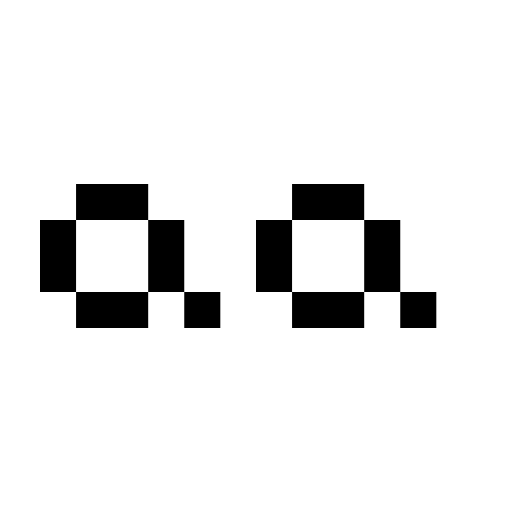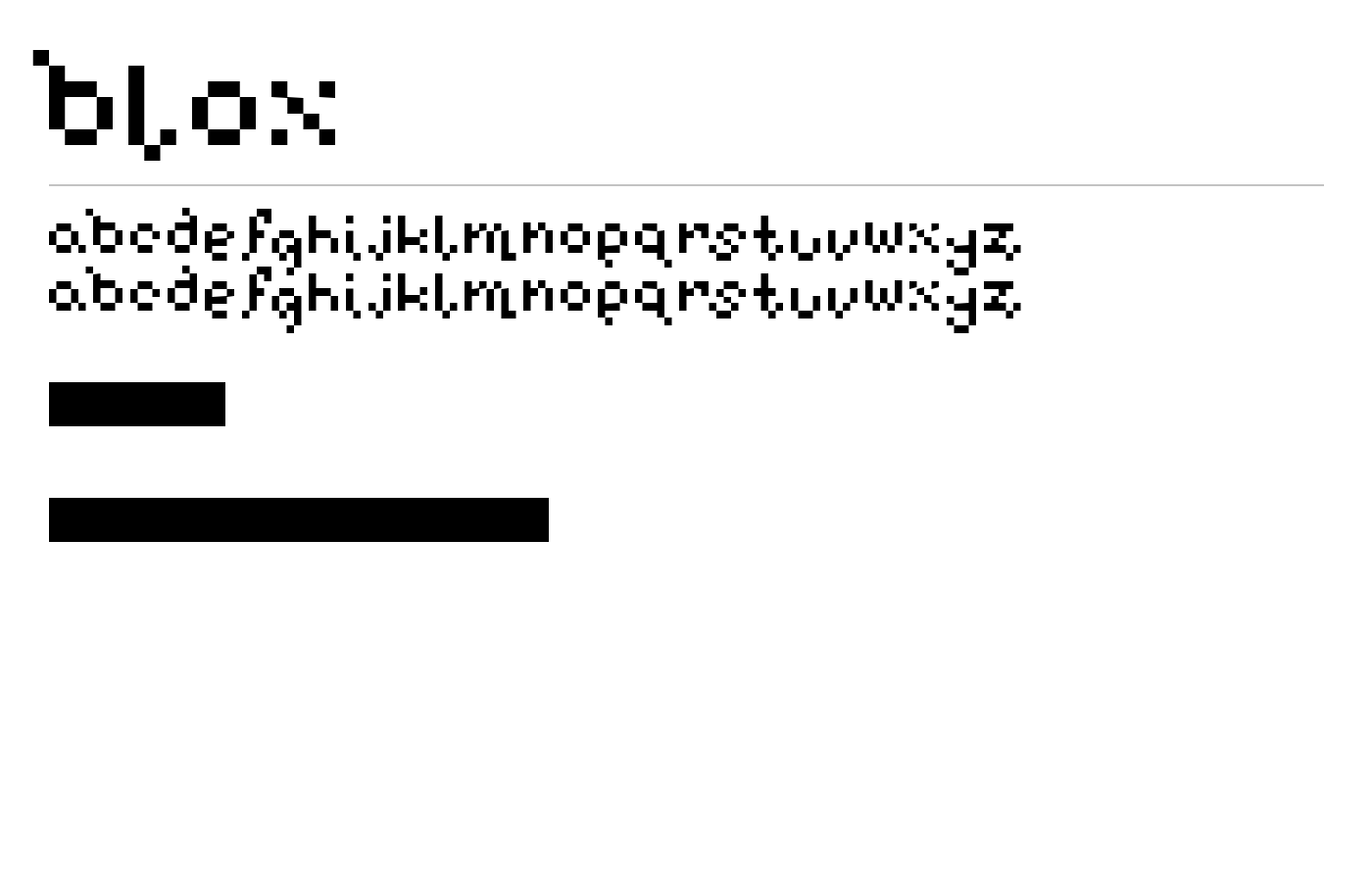
Blox Font is a pixelated, monospaced sans serif typeface characterized by its blocky, geometric shapes that evoke retro digital and video game aesthetics. Its consistent stroke weight and square, grid-based letterforms make it ideal for digital-themed designs, gaming interfaces, or any context where a nostalgic, tech-inspired look is desired. This font works best in headlines, logos, and branding projects that seek a playful yet structured vibe with a vintage computer feel.
Blox Font
About Blox Font
| Font family | Blox Font |
| Designer | Chris Coombes |